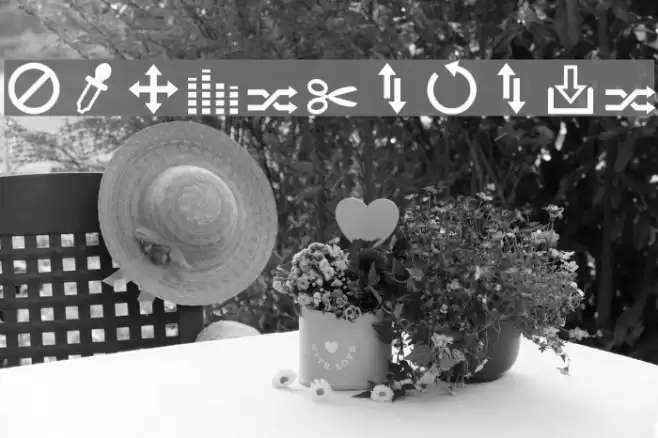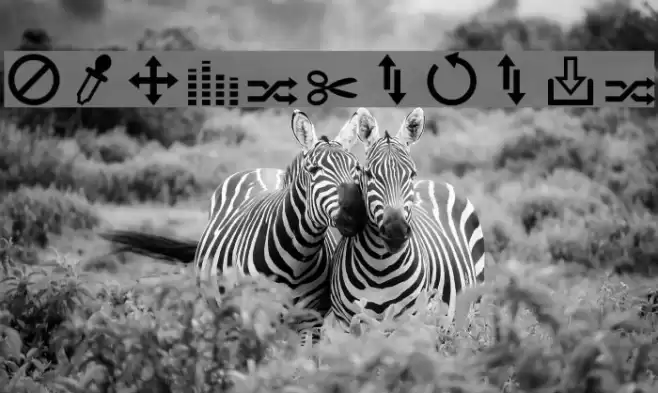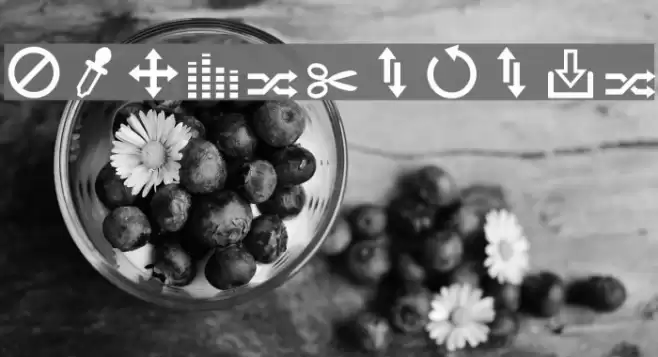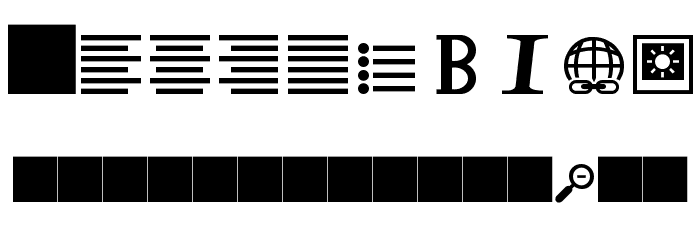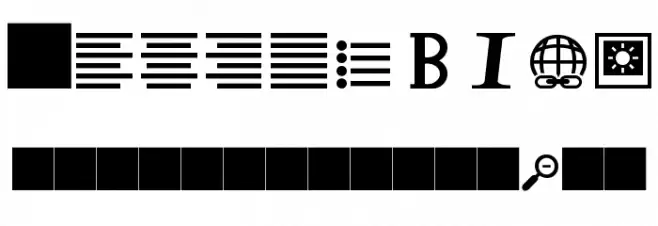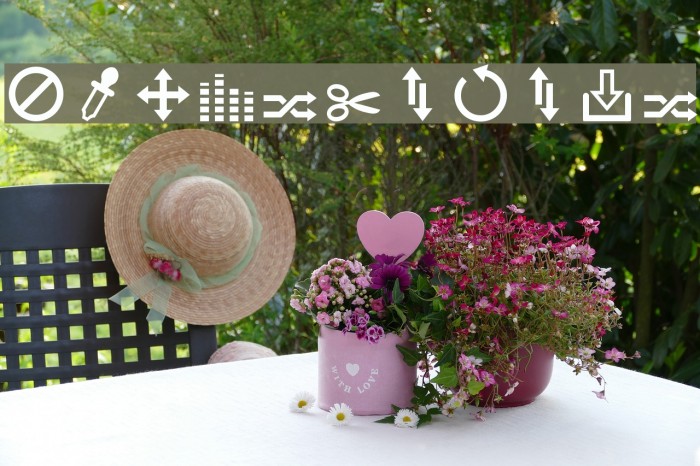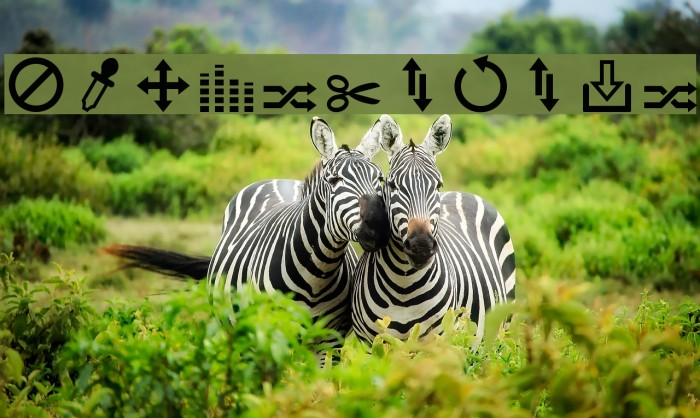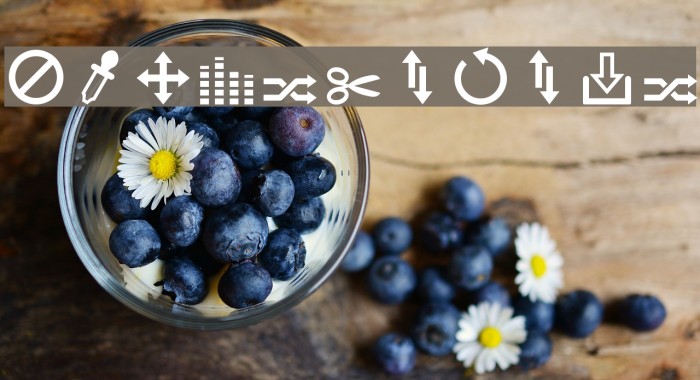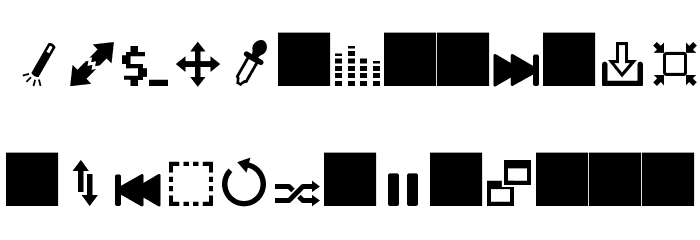
Heydings Controls Font
Heydings Controls Description
This collection features a variety of symbols and icons commonly used in digital interfaces and applications. The icons include representations of actions such as play, pause, stop, and rewind, as well as symbols for common functions like saving, deleting, and editing. The style is consistent and clear, making it ideal for user interface design. Each icon is designed with simplicity and functionality in mind, ensuring they are easily recognizable and effective in conveying their intended action or purpose.
A versatile set of icons for digital interfaces, focusing on clarity and functionality from Uncategorized fonts.
- Proposed Projects: Ideal for use in app development, website design, and software interfaces where clear and functional iconography is essential.
- Use Case: Icons for digital interfaces and applications.